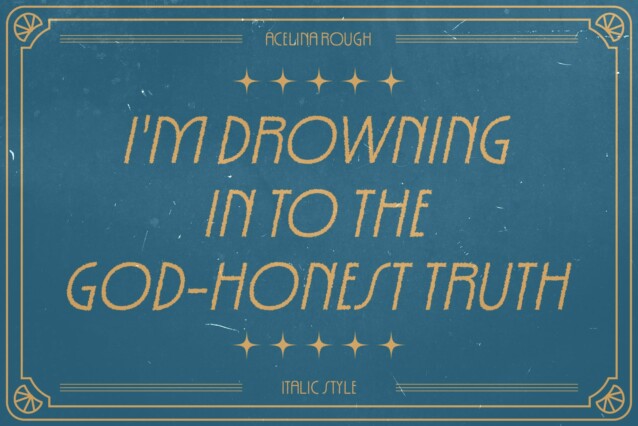
Acelina Rough Font
Acelina Rough Font is a modern sans serif font that exemplifies geometric simplicity and balanced proportions. Its design focuses on clean lines and basic forms, ensuring a neat and highly readable appearance. This minimalist aesthetic makes it a versatile choice for contemporary designs that prioritize clarity and elegance.
Unique Rough Texture
Adding a distinctive twist to its modern form, Acelina Rough incorporates a subtle rough effect. This texture introduces an intriguing contrast between smooth and rugged elements, enhancing the font’s character and uniqueness. The rough effect gives the font a tactile quality, making it stand out in a variety of design contexts.